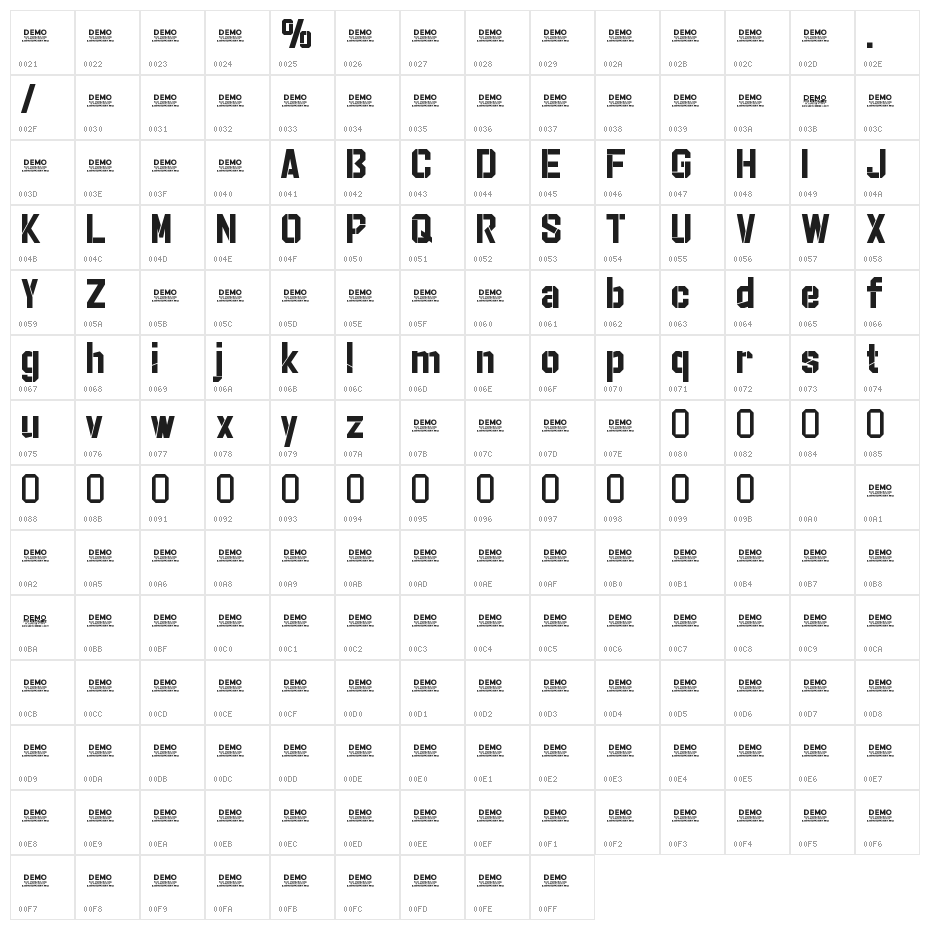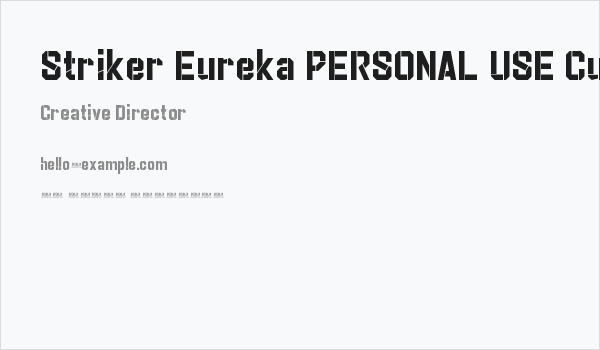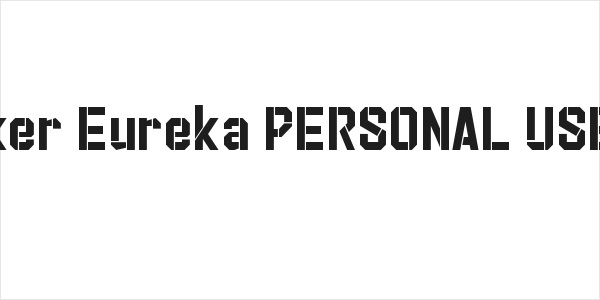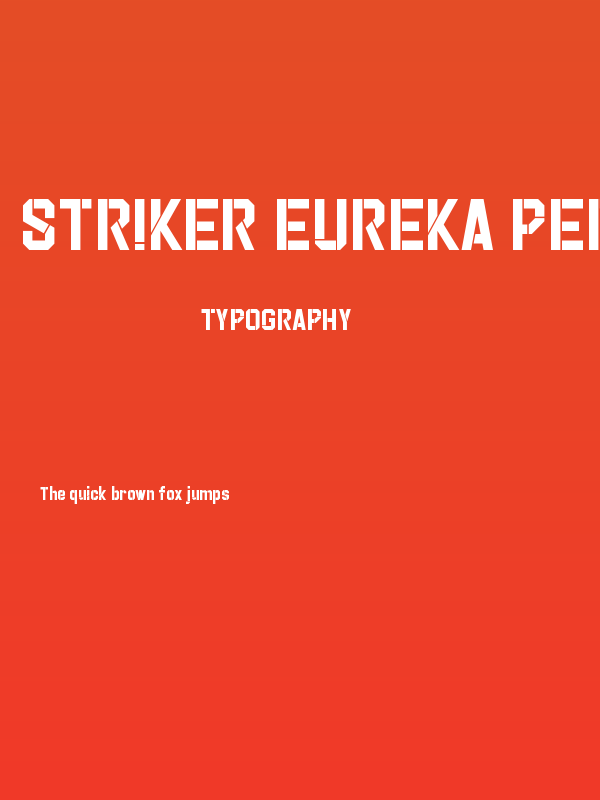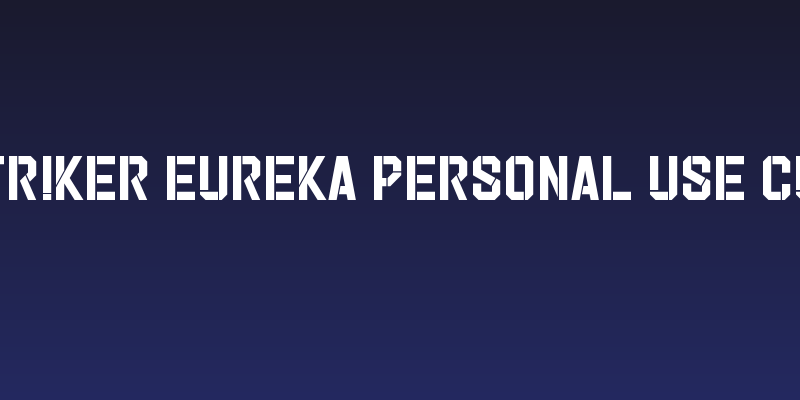
Striker Eureka PERSONAL USE Cut Font
Striker Eureka PERSONAL USE Cut Description
This font features a bold, geometric design with a futuristic and industrial feel. The characters are constructed with sharp angles and straight lines, creating a sense of strength and modernity. The uppercase and lowercase letters maintain a consistent style, with a unique cut-out effect that adds depth and dimension. The numbers and special characters follow the same design principles, ensuring a cohesive look across all text. This font is particularly striking in larger sizes, where its boldness and intricate details can be fully appreciated.
| Proposed Projects | Ideal for projects that require a modern and edgy look, such as tech branding, video game titles, or sci-fi themed posters. |